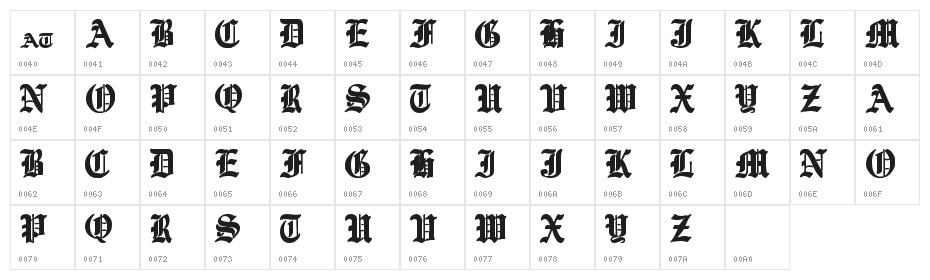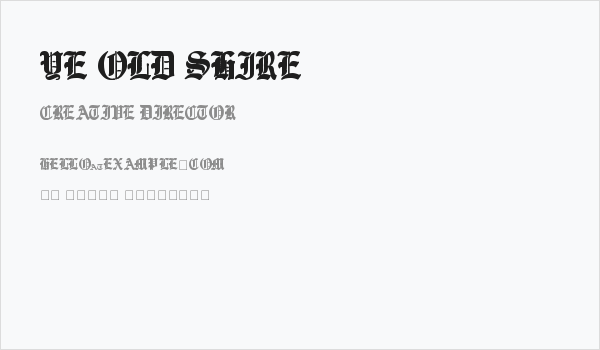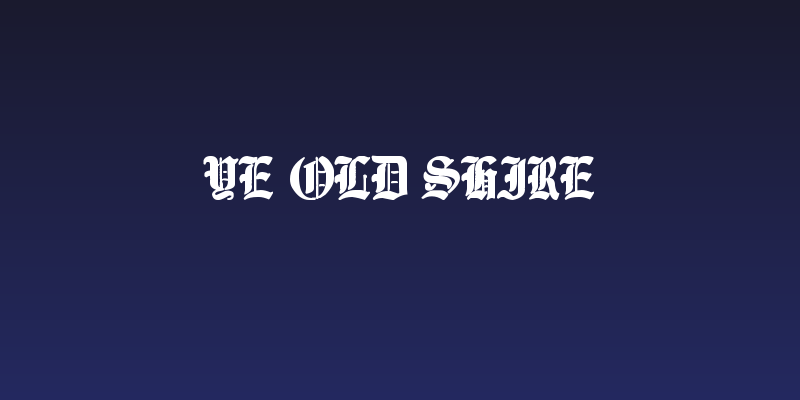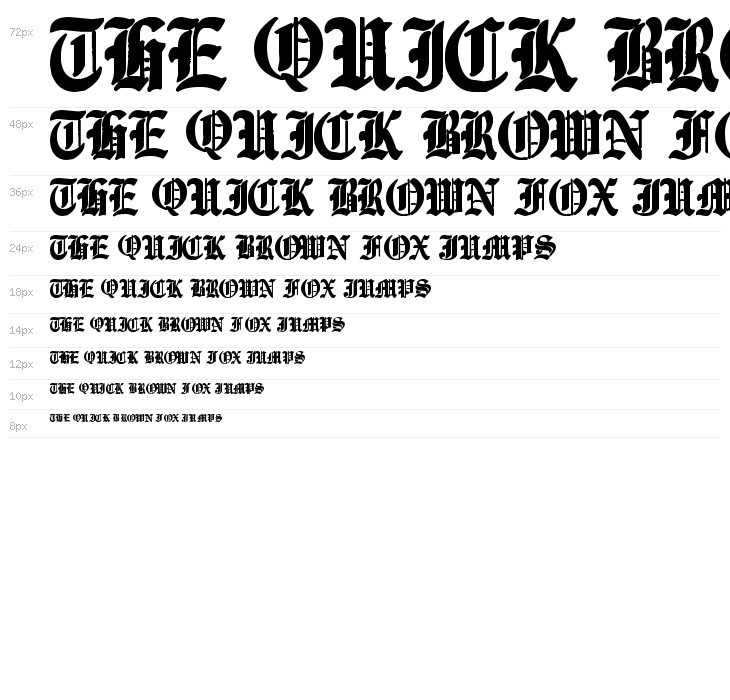
Ye Old Shire Font
Ye Old Shire Description
This font exudes a classic and historical charm, reminiscent of medieval manuscripts and traditional calligraphy. Its intricate and ornate design features sharp, angular strokes and elaborate serifs, capturing the essence of old-world craftsmanship. The characters are bold and commanding, with a distinct Gothic influence that adds a sense of drama and elegance. The uppercase letters are particularly striking, with their elaborate flourishes and strong vertical emphasis. This font is perfect for projects that require a touch of antiquity and sophistication, such as historical documents, themed event invitations, or branding for luxury products.
| Use Case | Headlines, Logos, Decorative |
| Proposed Projects | Ideal for historical documents, themed invitations, luxury branding, and decorative signage. |